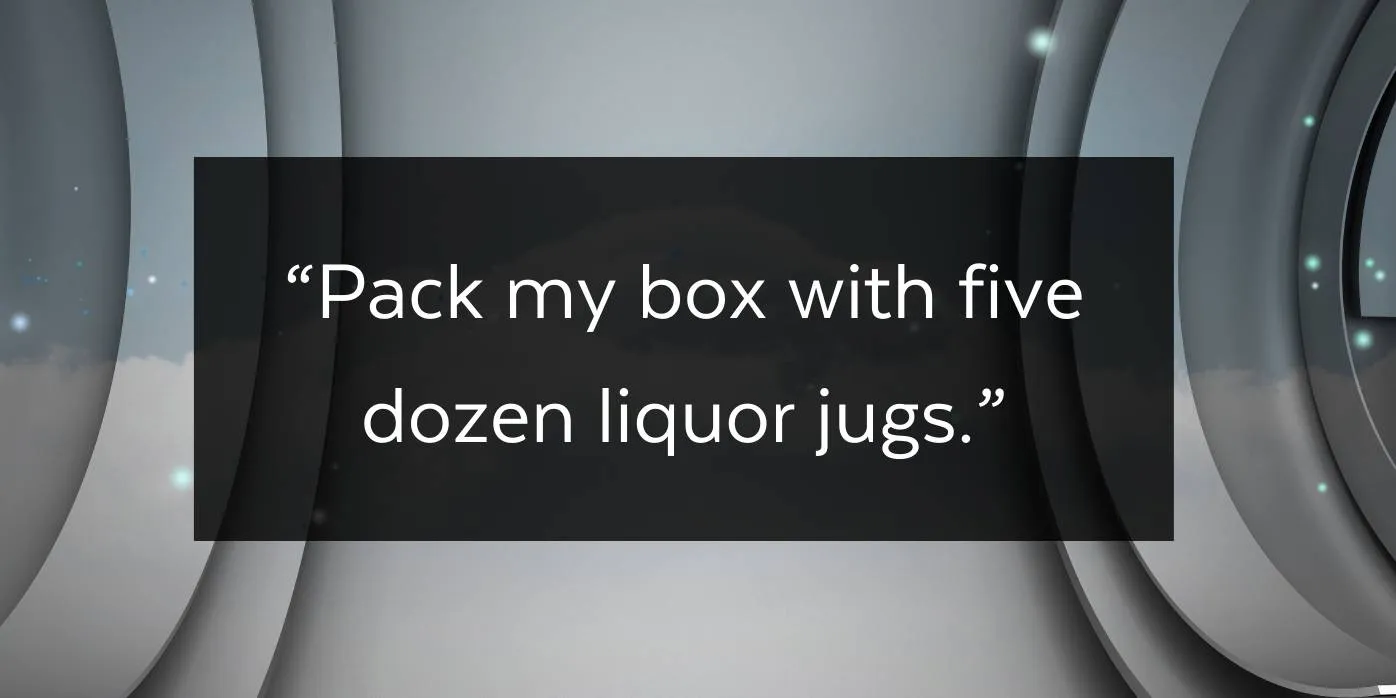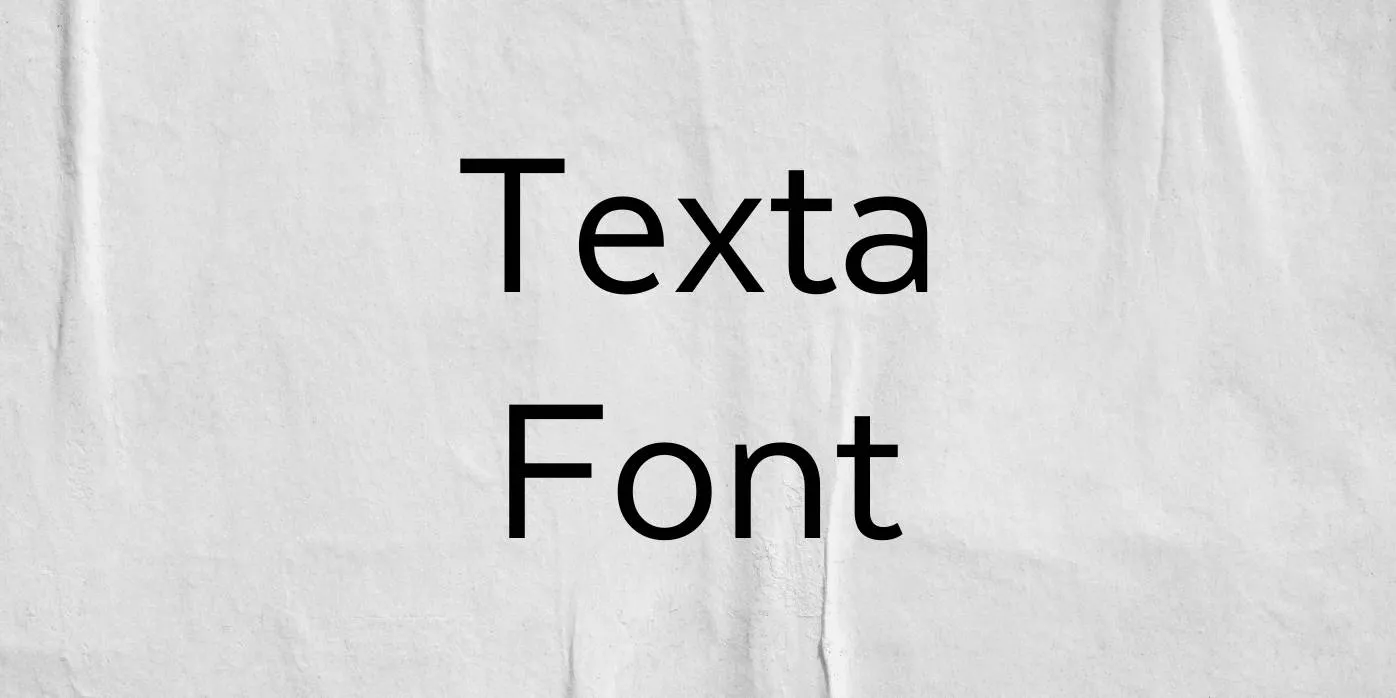
Texta Font
Texta Font is a very famous typeface that was developed by the Sans Serif typeface family. This cute font family was designed by two popular and elegant designers named Miguel Hernandez & Daniel Hernandez. The Hernandez brothers are also the designers of other widely used fonts. Texta Font is a Sans Serif typeface which means that it doesn’t have little hooks at the end of each letter.
Its alternative clearview font is best for many designs. This tremendous typeface comes in more than 32 famous and classic characters. This typeface also comes in 109 special and outstanding Glyphs. If you’re looking for a stylish and versatile Texta Font guide, then you’ve come to the right place.